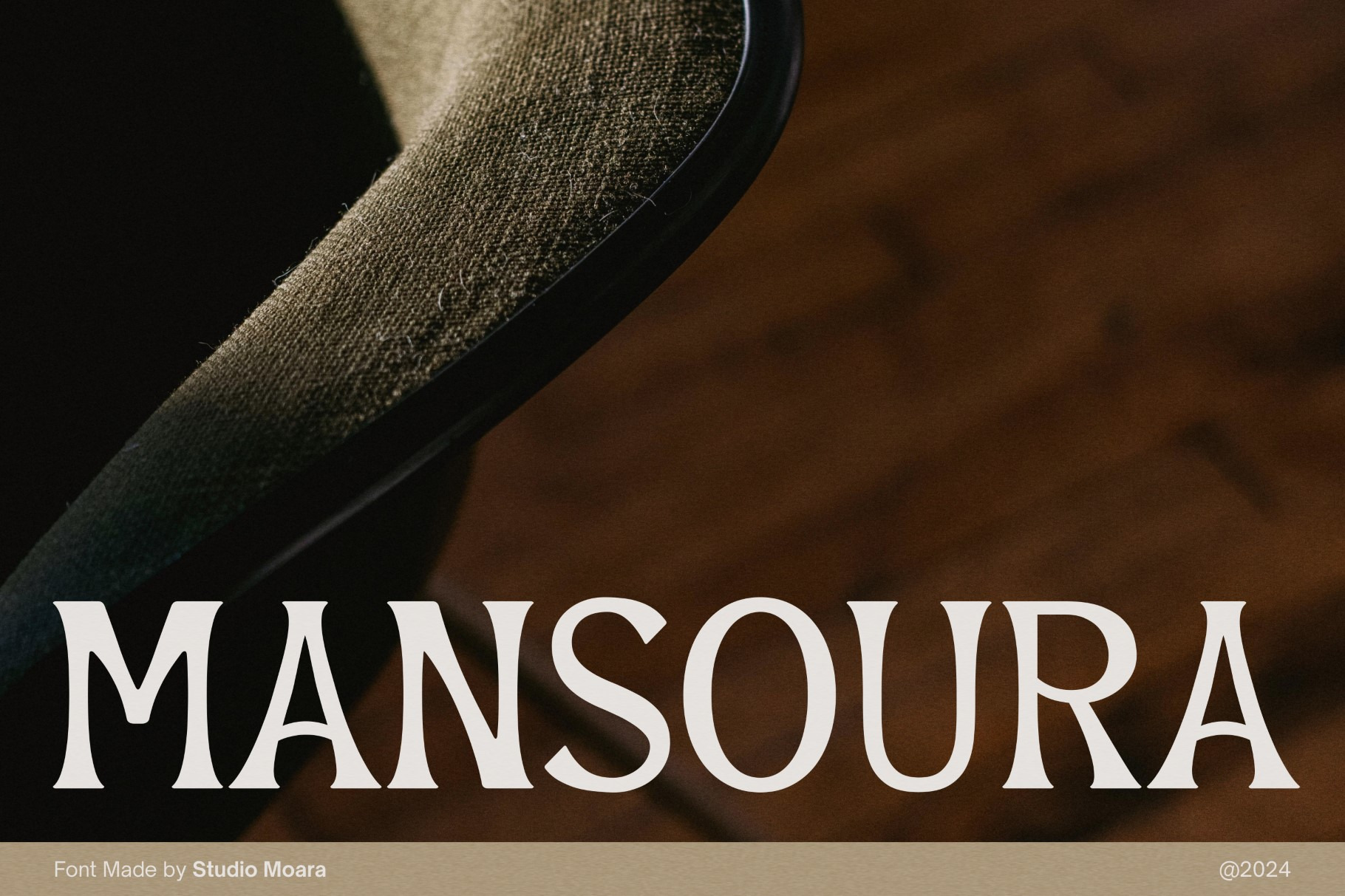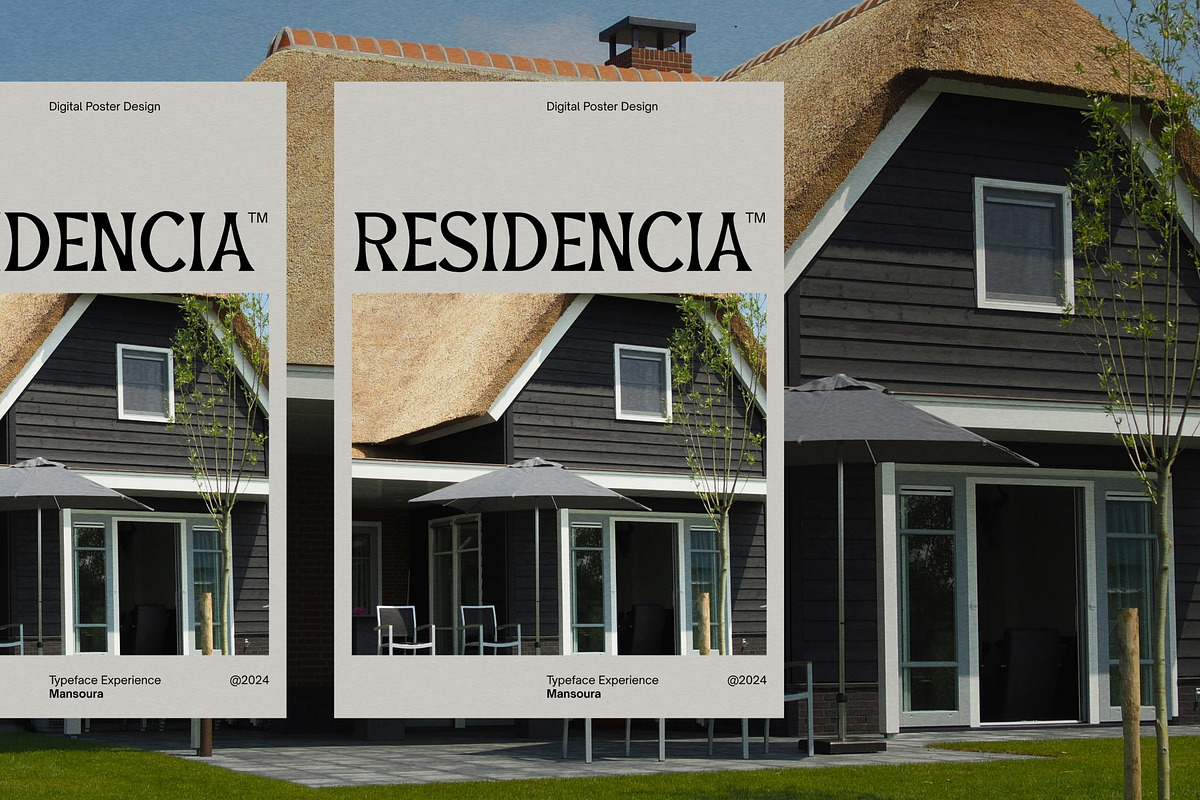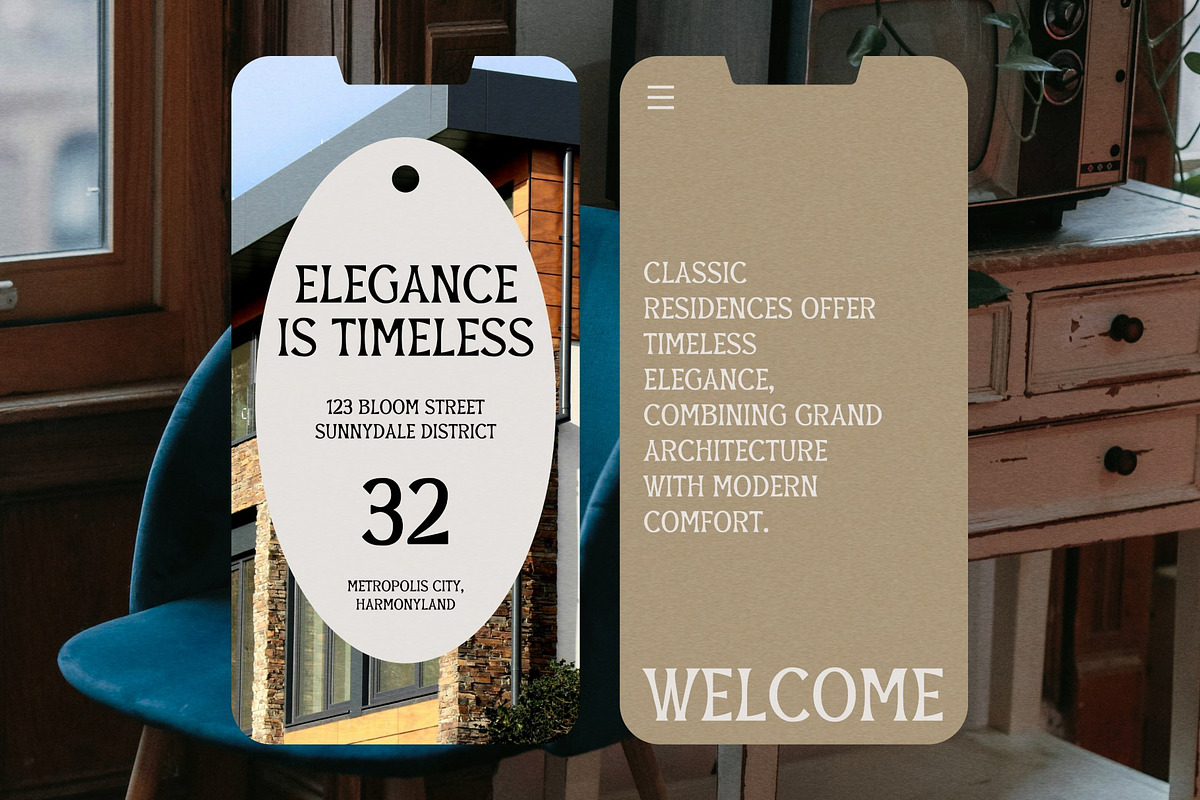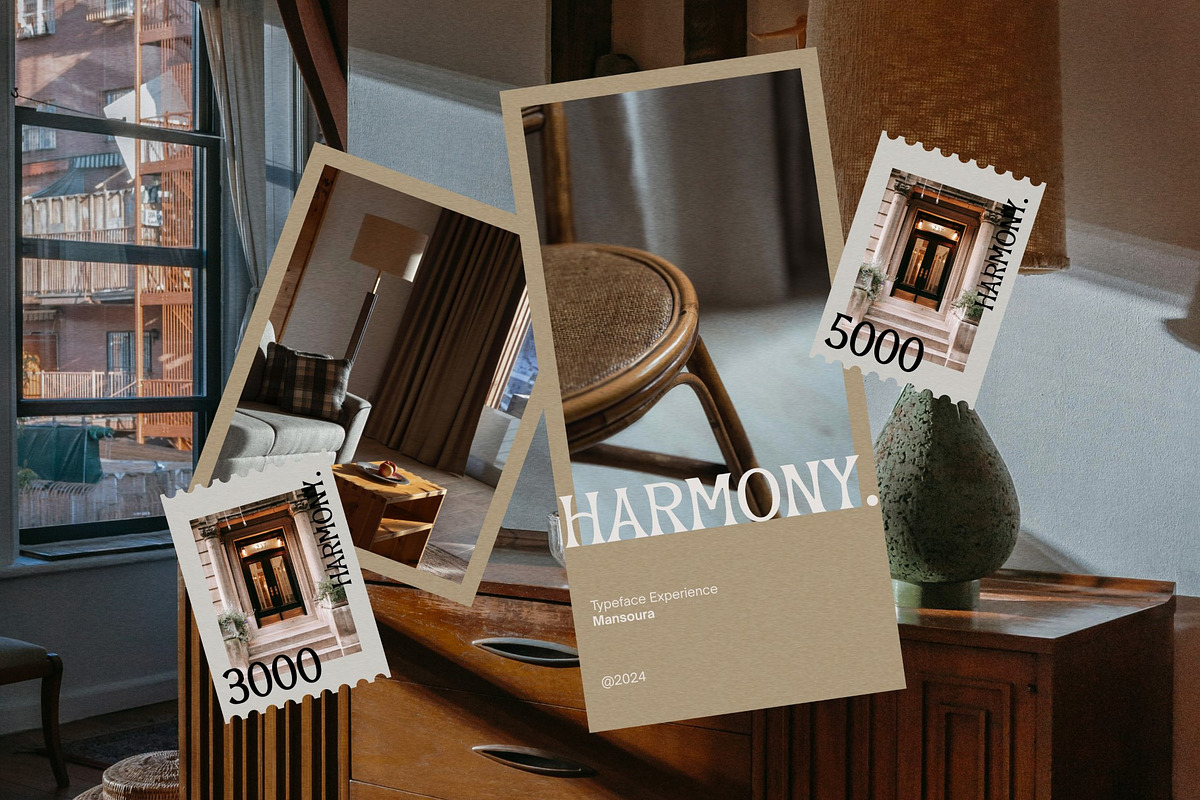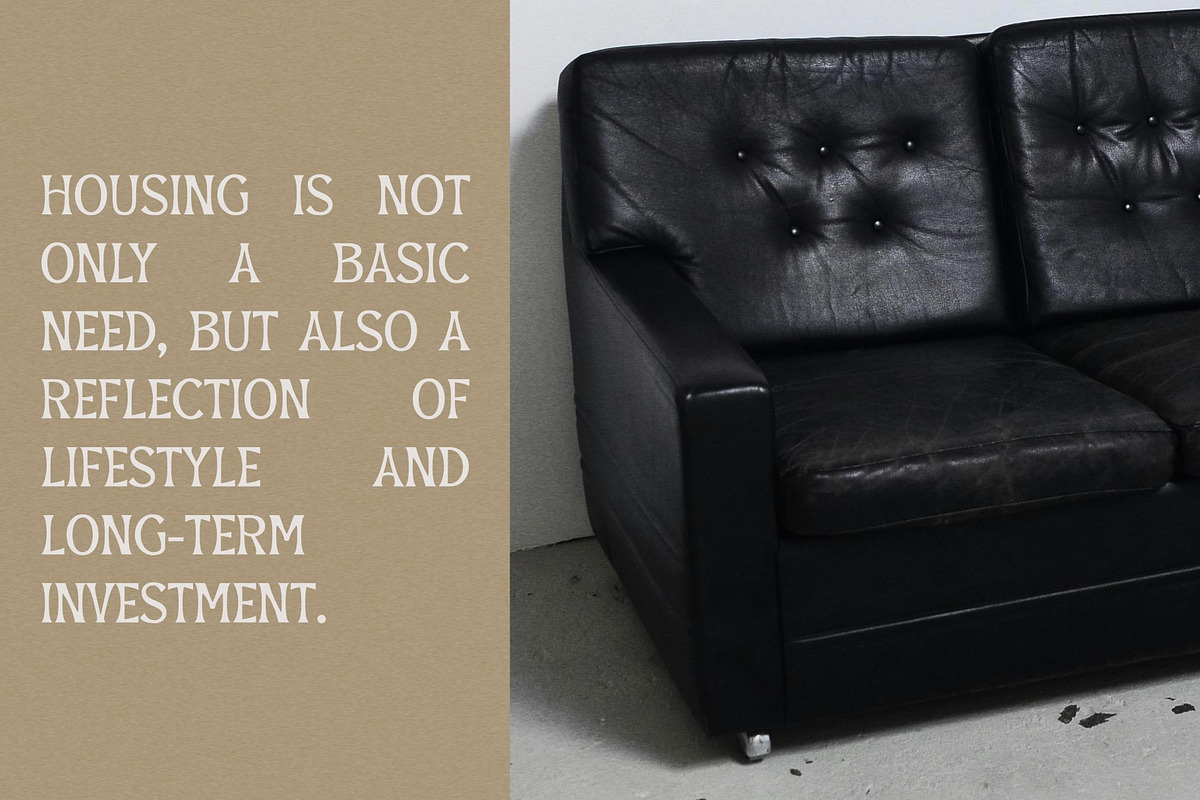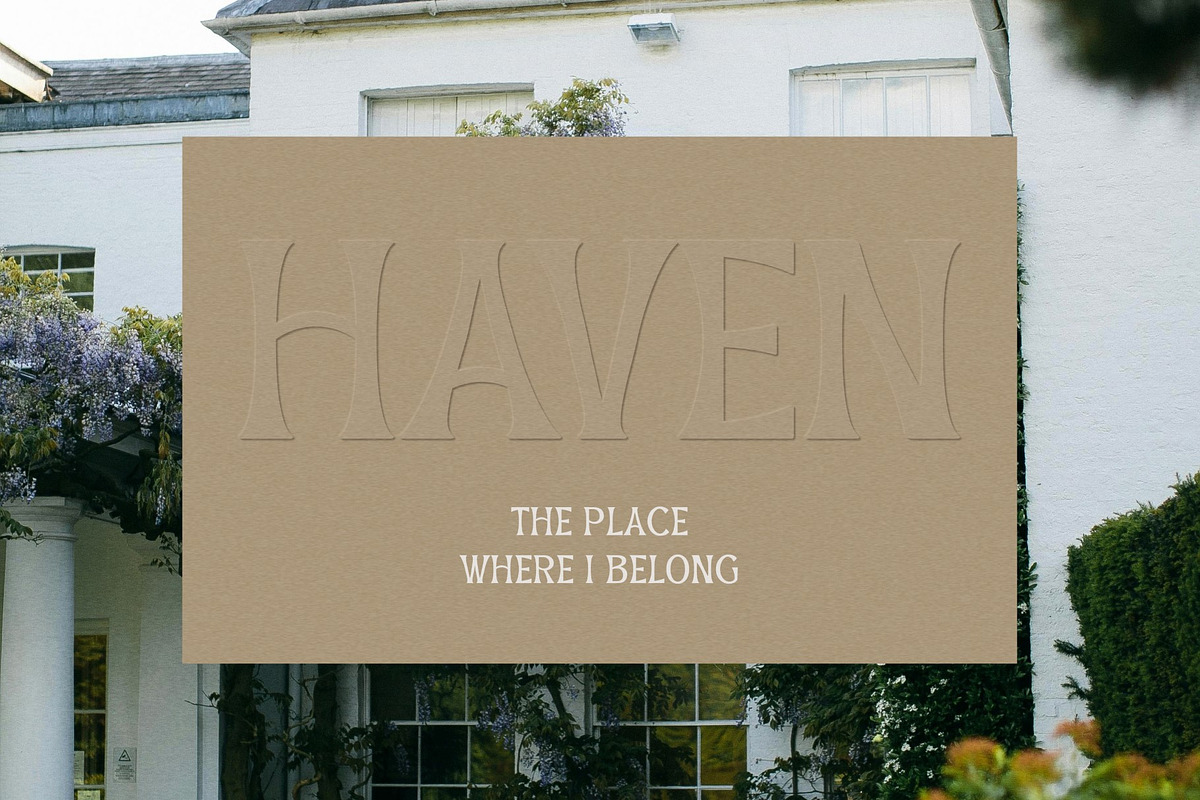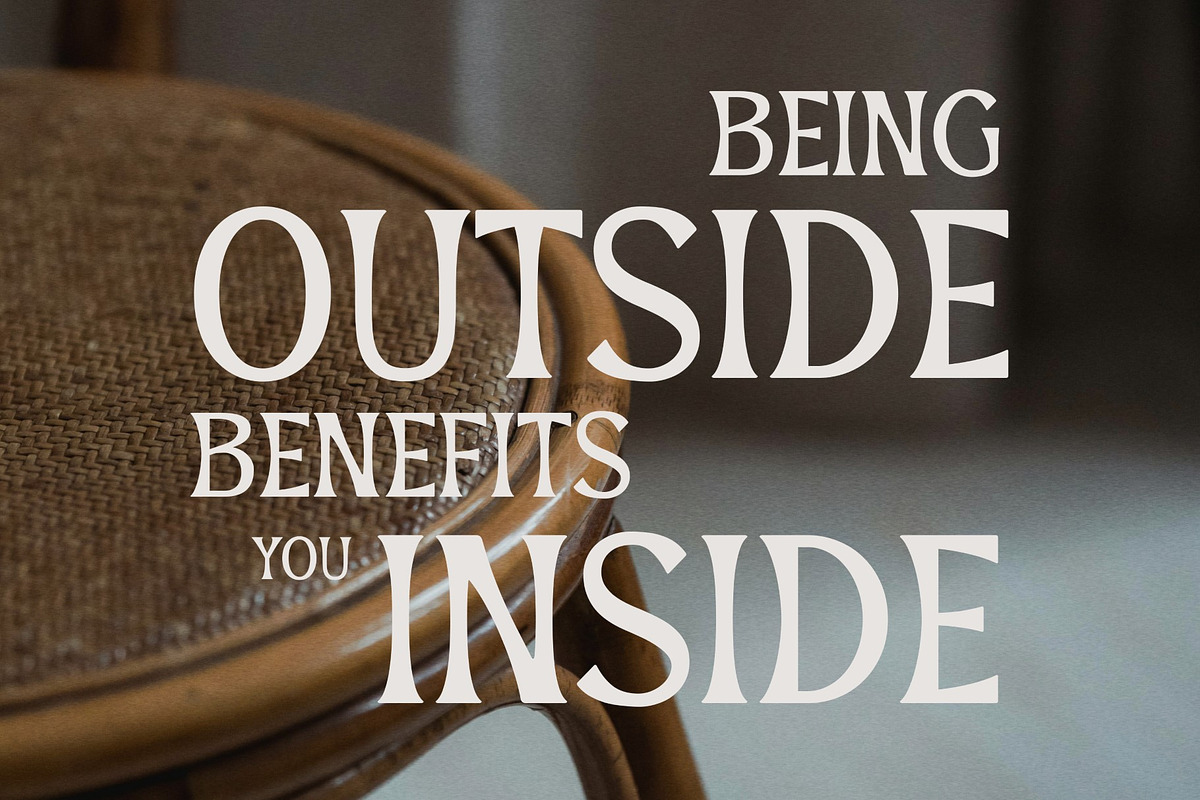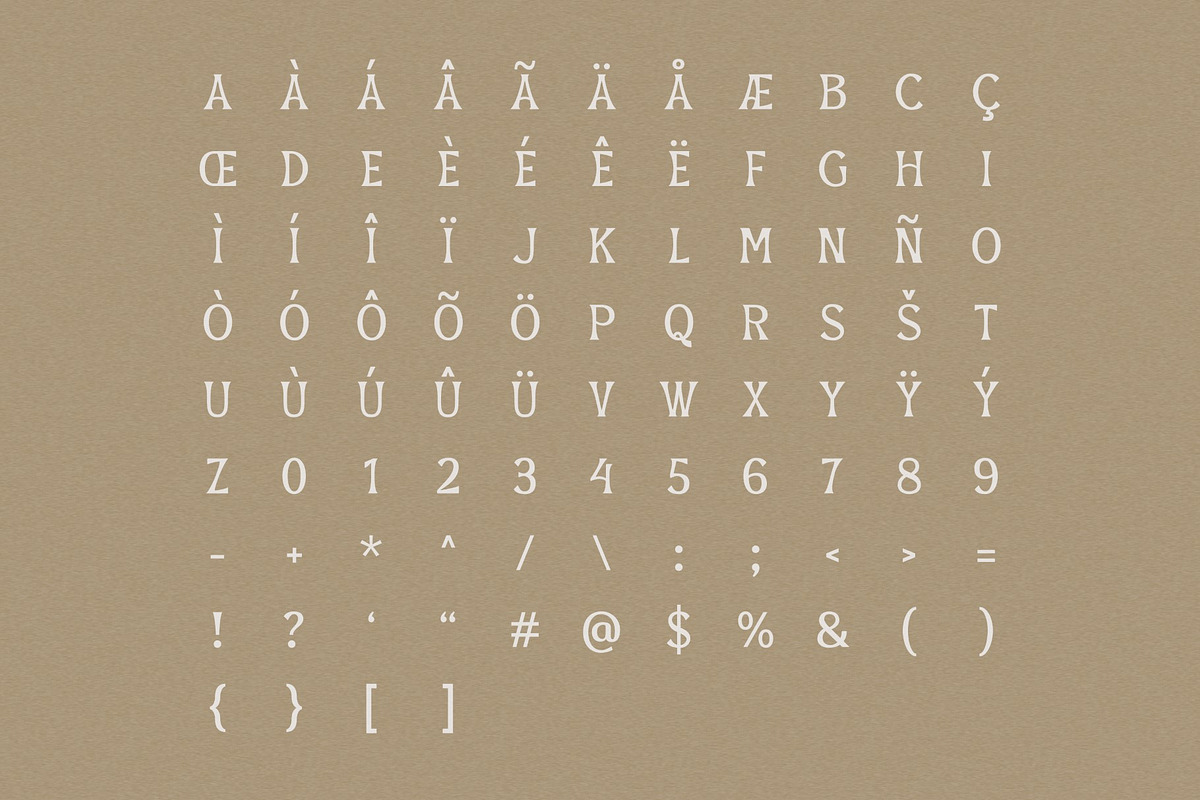
Mansoura - Display Font
Introducing Mansoura, the sophisticated display font that combines elegance and strength. Inspired by classic design elements, Mansoura features bold, distinctive characters perfect for making a statement in any project. Whether you're crafting posters, branding materials, or editorial layouts, this font's timeless appeal and refined style elevate your work to new heights. Embrace the powerful presence of Mansoura and let its unique charm bring a touch of sophistication and artistry to your creative endeavors.